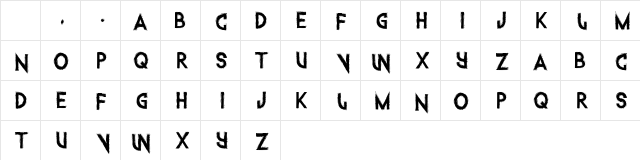
Complete Into the Gator Pit Regular glyph index. Displaying only characters natively supported by Into the Gator Pit Regular font.
Into the Gator Pit is a composed and adaptable typeface that performs quietly and consistently across a wide range of design contexts.